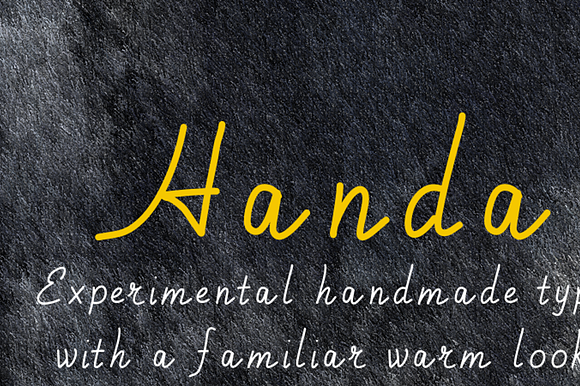
Handa, a hand made exploration
Handa font is a hand made pencil type with its rounded, almost italic lines. Handa font can create a familiar warm look so necessary when you need to create a cozy, warmth, friendly feeling for your readers.
Handa, a hand made exploration by Kreativ Font fits naturally into Branding, posters, packaging, typography.